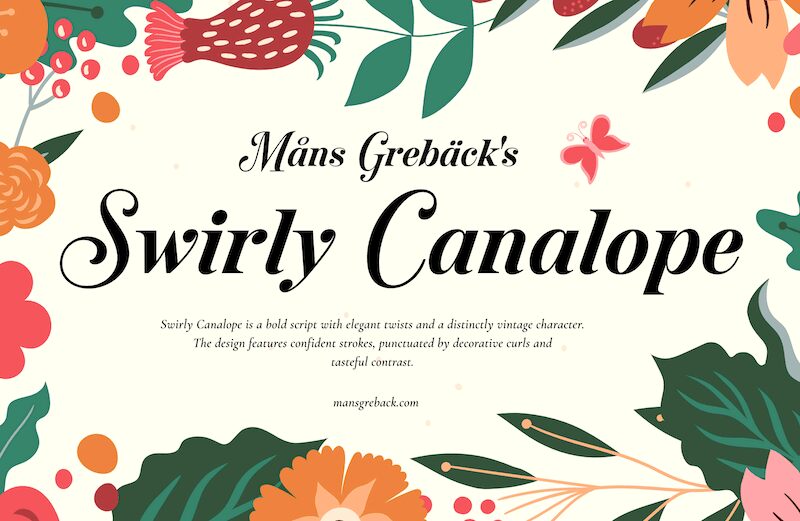
Swirly Canalope font, by Måns Grebäck, is a free font that exudes elegance and charm. Presenting a classic flair with beautiful decorative curves, it is a timeless choice for complementing a variety of both online and offline design projects.
Swirly Canalope is a bold script with elegant twists and a distinctly vintage character.
The design features confident strokes, punctuated by decorative curls and tasteful contrast, resulting in a look that balances strength with flourish.
Its uppercase set sways with theatrical curves and grand entry strokes, making it perfect for ornamental purposes, while the lowercase letters remain grounded and legible, ensuring text cohesion.
With a touch of old-fashioned signage and classic editorial titling, Swirly Canalope fits comfortably in both retro and contemporary creative settings.